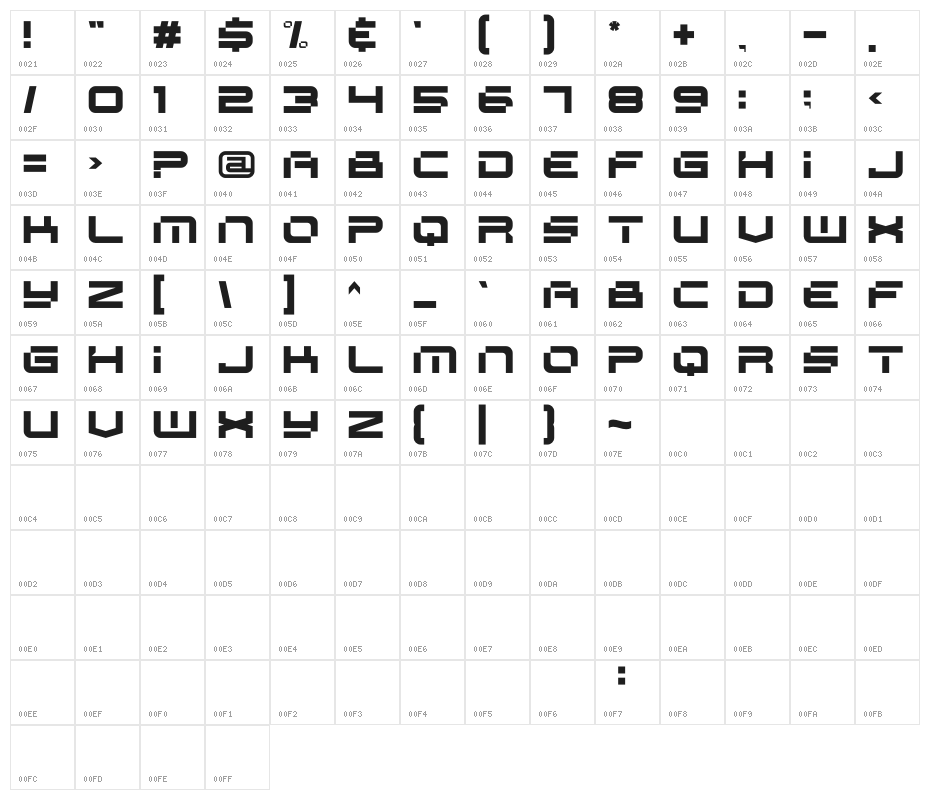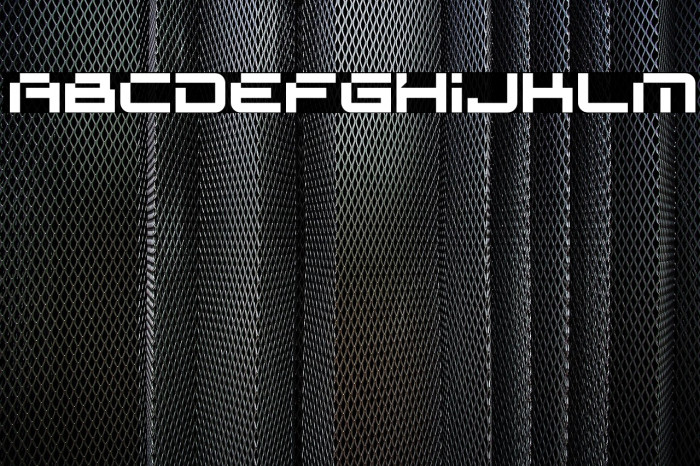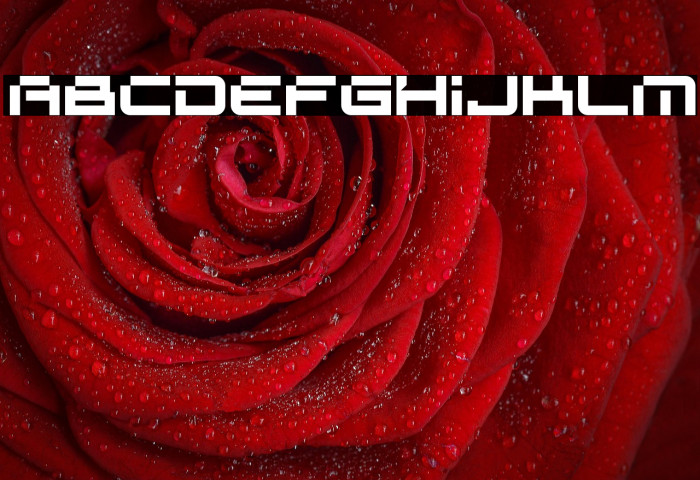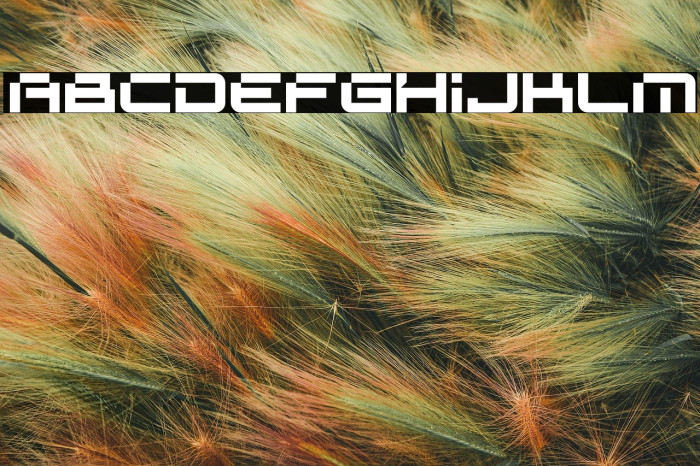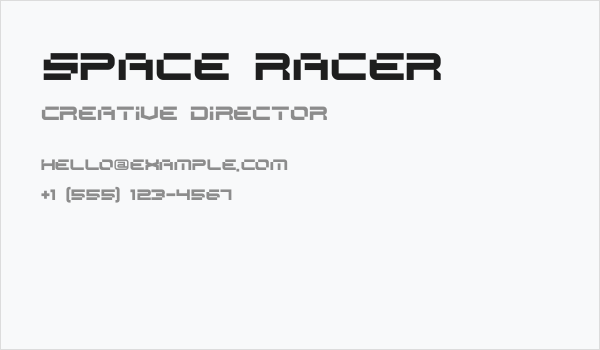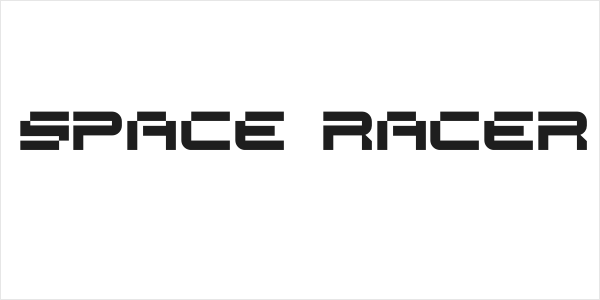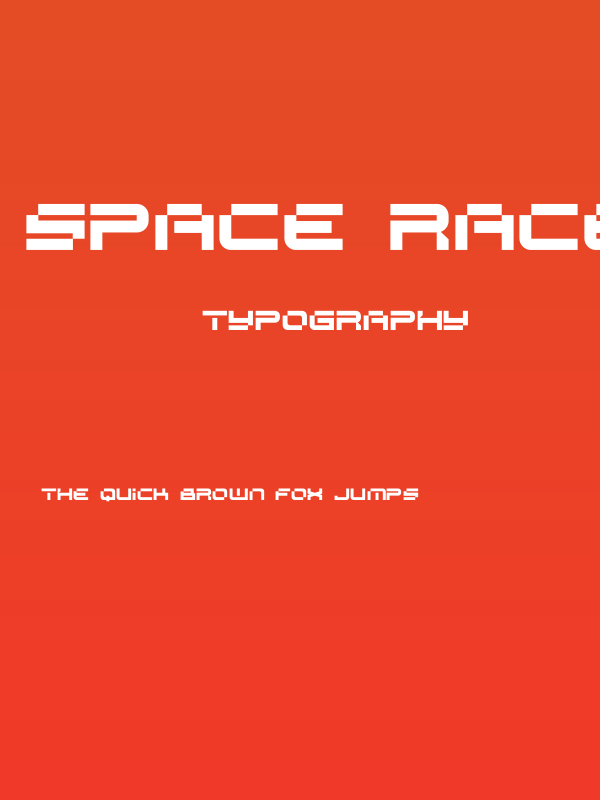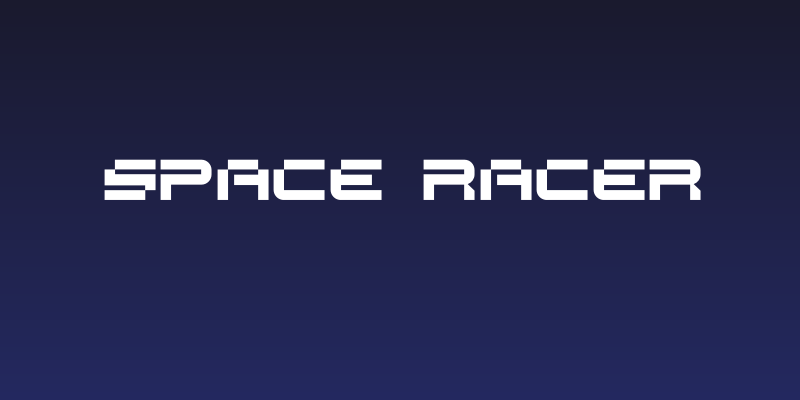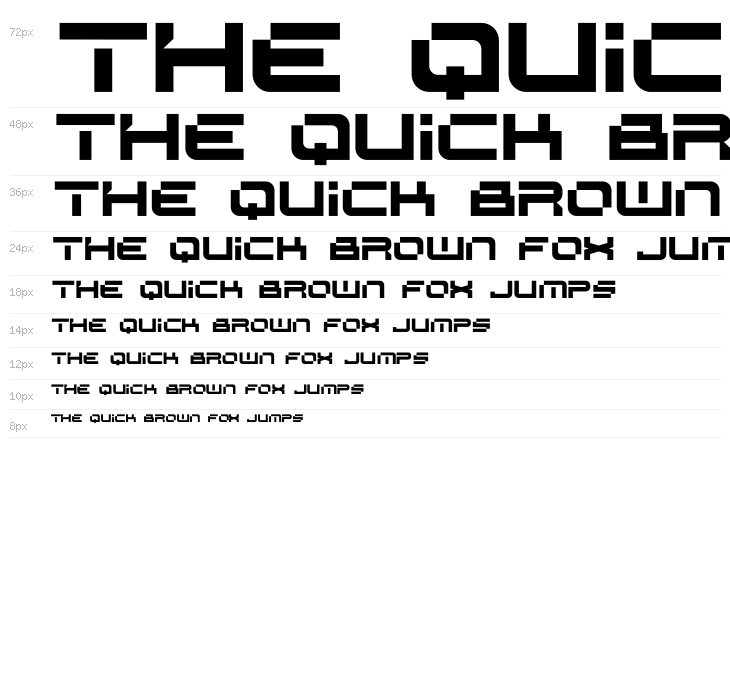
SPACE RACER Font
SPACE RACER Description
A futuristic, geometric font with a bold and angular design, featuring consistent stroke widths and sharp corners.
| Proposed Projects | Tech branding, sci-fi posters, video game titles. |